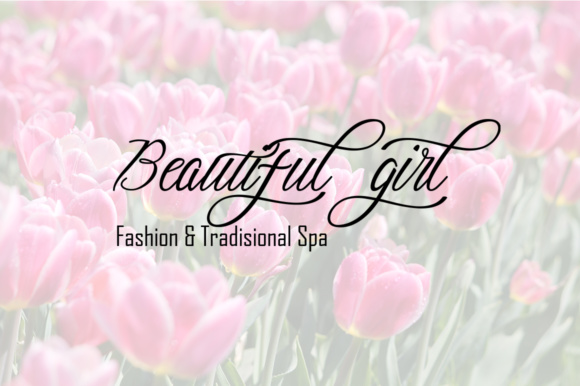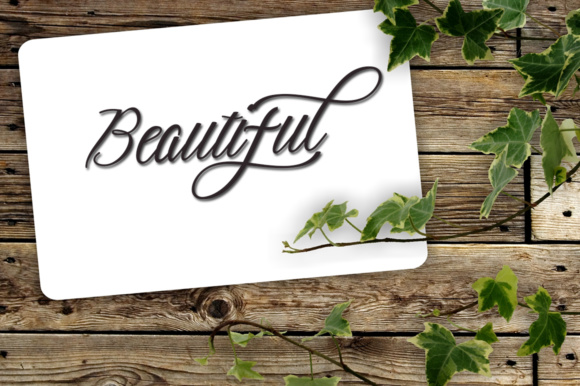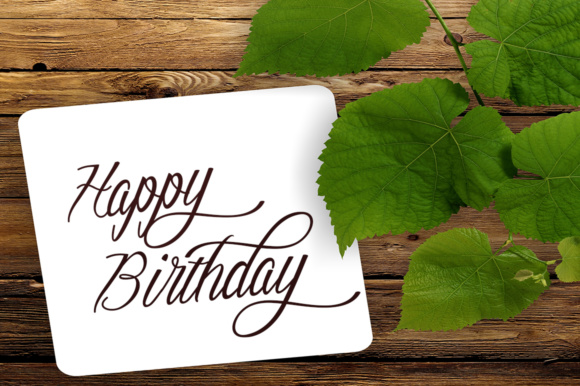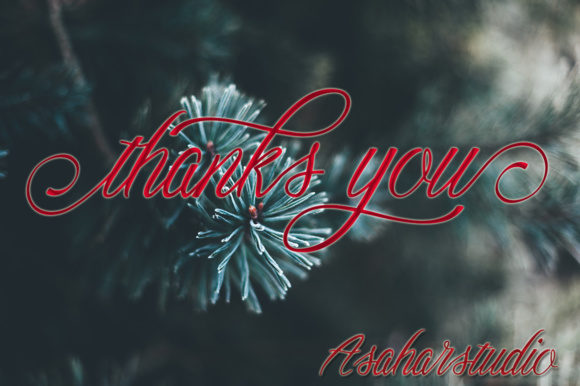
Introducing Delight Font: Elevate Your Designs with Elegance
Are you a designer or crafter looking for a font that exudes sophistication and refinement? Look no further than Delight Font, an elegant calligraphy typeface that can elevate your designs to new heights. With its flowing lines and classic charm, Delight Font is perfect for a wide range of applications, from headings and posters to t-shirts and news articles.
The Characteristics of Delight Font
Delight Font is a beautifully crafted calligraphy typeface that boasts a range of characteristics that make it perfect for designers and crafters. Some of its key features include:
- Elegant Lines: Delight Font features flowing, connected lines that give it a sense of movement and fluidity.
- Classic Charm: The font has a timeless, classic feel that makes it perfect for designs that require a touch of sophistication.
- Versatility: Delight Font can be used for a wide range of applications, from headings and posters to t-shirts and news articles.
- High Readability: Despite its elegant lines, Delight Font is highly readable, making it perfect for body text as well as headings.
Uses for Delight Font
Delight Font is a versatile typeface that can be used for a wide range of applications. Here are some ideas to get you started:
- Headings and Titles: Delight Font is perfect for headings and titles, where its elegant lines and classic charm can really shine.
- T-Shirts and Merchandise: The font’s bold, yet refined lines make it perfect for t-shirts and other merchandise.
- Posters and Flyers: Delight Font is a great choice for posters and flyers, where its classic charm and high readability can help grab attention.
- News Articles and Editorials: The font’s elegance and sophistication make it perfect for news articles and editorials.
- Wedding and Event Stationery: Delight Font is a popular choice for wedding and event stationery, where its classic charm and romance can add a touch of elegance.
Why Choose Delight Font?
With so many fonts to choose from, why should you choose Delight Font for your next design project? Here are just a few reasons:
- Unique and Distinctive: Delight Font is a unique and distinctive typeface that will help your designs stand out from the crowd.
- Elegant and Sophisticated: The font’s elegant lines and classic charm make it perfect for designs that require a touch of sophistication.
- Highly Versatile: Delight Font can be used for a wide range of applications, from headings and posters to t-shirts and news articles.
- Easy to Read: Despite its elegant lines, Delight Font is highly readable, making it perfect for body text as well as headings.
Tips for Using Delight Font
Here are a few tips for getting the most out of Delight Font:
- Use it Sparingly: Delight Font is a bold and elegant typeface, so use it sparingly to make the most impact.
- Pair it with Other Fonts: Delight Font pairs well with a range of other fonts, so don’t be afraid to experiment and find the perfect combination.
- Experiment with Colors: Delight Font looks great in a range of colors, so don’t be afraid to experiment and find the perfect hue for your design.
- Pay Attention to Size: Delight Font is a elegant typeface, so make sure to use it at a size that does justice to its refined lines.
Delight Font is a beautiful and elegant calligraphy typeface that is perfect for designers and crafters looking to add a touch of sophistication to their designs. With its flowing lines, classic charm, and high readability, Delight Font is a versatile typeface that can be used for a wide range of applications. Whether you’re creating headings, posters, t-shirts, or news articles, Delight Font is a great choice. So why not give it a try and see the difference it can make in your designs?